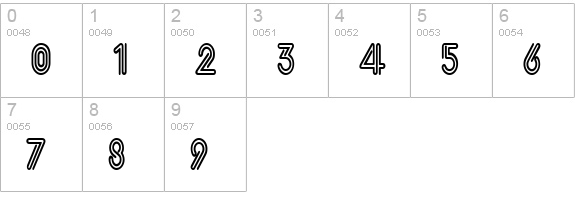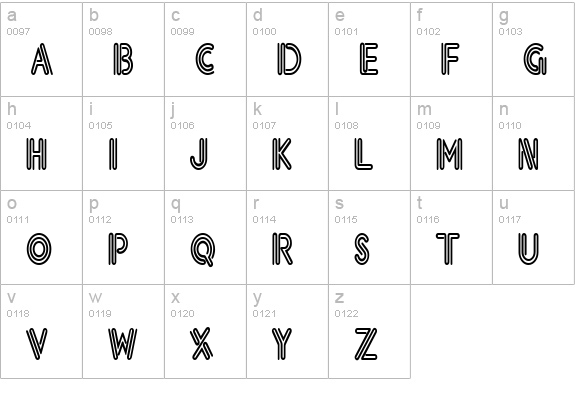
Voltage Thin Normal Font Details
Voltage Thin Normal is a delicate, low-contrast variant in the Voltage typeface family \xE2\x80\x94 well suited to fashion editorial, minimal branding, and high-contrast display.
Voltage Thin Normal is a sleek and modern font that exudes elegance and sophistication. Its thin and delicate strokes add a touch of refinement to any design project, making it perfect for use in branding, logos, headers, and more. This font is ideal for those who desire a clean and minimalist look, as its simple yet stylish design commands attention without overpowering the overall aesthetic. What sets Voltage Thin Normal apart is not just its aesthetic appeal, but also its accessibility. This font is freely available to download at FontsMarket.com, making it easily accessible to designers and creatives alike. Whether you are a professional designer or a beginner exploring the world of typography, Voltage Thin Normal offers a versatile and high-quality font option that won't break the bank. With its wide range of characters, including uppercase and lowercase letters, numerals, punctuation marks, and special symbols, Voltage Thin Normal provides endless possibilities for creative expression. Its legibility and clarity ensure that your message will be conveyed effectively, even at small sizes or on different media. Embrace the beauty and versatility of Voltage Thin Normal, and let your designs shine with its elegant and contemporary charm. Download this font for free at FontsMarket.com and elevate your projects to new heights of sophistication and style.